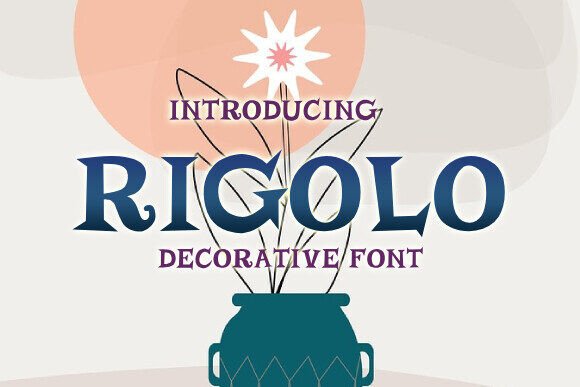
Rigolo Font: Elevate Your Designs with a Stylish and Versatile Typeface
In the world of typography, fonts play a crucial role in conveying messages, expressing emotions, and creating visual identities. When it comes to designing posters, flyers, t-shirts, or any other visual material, selecting the right font can make all the difference. This is where Rigolo Font comes into play – a stylish and versatile typeface that can elevate your designs to the next level.
What is Rigolo Font?
Rigolo Font is a modern, stylish, and highly legible typeface designed to add a touch of sophistication and elegance to your designs. Its unique and distinctive style makes it perfect for a wide range of applications, from posters and flyers to t-shirts and digital media.
With its clean lines, balanced proportions, and stylish flair, Rigolo Font is an excellent choice for designers looking to create visually appealing and effective designs. Whether you’re working on a branding project, creating promotional materials, or designing merchandise, this font is sure to impress.
How to Use Rigolo Font in Your Designs
Rigolo Font is an incredibly versatile typeface that can be used in a variety of design applications. Here are some ideas to get you started:
- Posters: Create eye-catching posters for events, concerts, or exhibitions with Rigolo Font. Its bold and stylish design ensures that your message will stand out.
- Flyers: Use Rigolo Font to design flyers for businesses, services, or promotions. Its clean and legible design makes it easy to read and understand.
- T-shirts: Design stylish and comfortable t-shirts with Rigolo Font. Its unique and fashionable style is sure to appeal to anyone who sees it.
- Digital Media: Use Rigolo Font in your digital media, such as social media graphics, blog posts, or website headers. Its modern and sleek design will add a touch of sophistication to your online presence.
Typography Tips for Using Rigolo Font
To get the most out of Rigolo Font, here are some typography tips to keep in mind:
- Pair it with other fonts: Combine Rigolo Font with other fonts to create a unique and visually appealing typography scheme.
- Experiment with sizes: Play with different font sizes to create visual hierarchy and emphasize important information.
- Use it in bold: Take advantage of Rigolo Font’s bold weight to create eye-catching headlines and titles.
- Consider line spacing: Make sure to adjust line spacing to ensure that your text is easy to read and understand.
Benefits of Using Rigolo Font
Rigolo Font offers a range of benefits that make it an excellent choice for designers. Here are some of the advantages of using this stylish font:
- Unique and distinctive style: Rigolo Font has a unique and stylish design that sets it apart from other fonts.
- Highly legible: Its clean lines and balanced proportions make it easy to read and understand.
- Versatile: Rigolo Font can be used in a wide range of design applications, from posters and flyers to t-shirts and digital media.
- Modern and sleek: Its modern and sleek design makes it perfect for contemporary designs and branding projects.
Rigolo Font is a stylish and versatile typeface that can elevate your designs to the next level. Its unique and distinctive style, combined with its high legibility and versatility, make it an excellent choice for a wide range of design applications.
Whether you’re a professional designer or a DIY enthusiast, Rigolo Font is a great addition to your typography toolkit. So why not give it a try and see how it can enhance your designs?